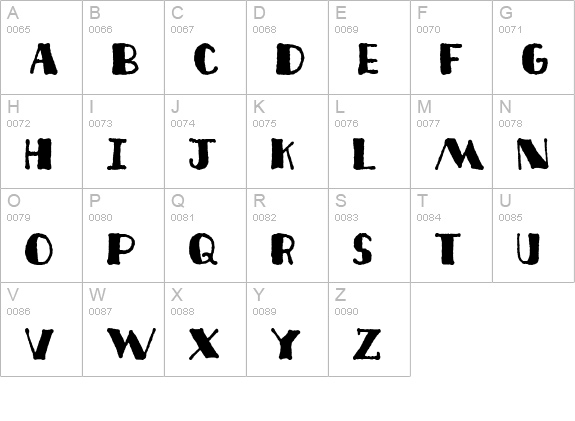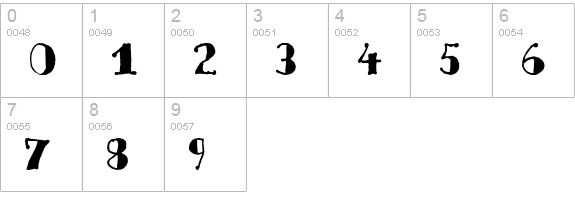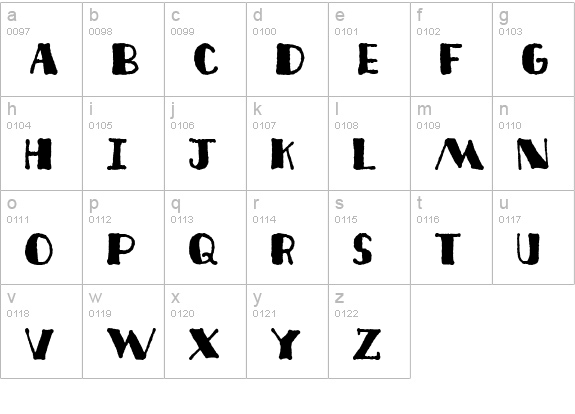
Deco Freehand Font Details
The Deco Freehand font is a charming and whimsical typeface that exudes a sense of creativity and artistic flair. Its hand-drawn style gives it a unique and playful look, perfect for adding a touch of personality to your designs. With its flowing lines and organic shapes, Deco Freehand is sure to bring a sense of fun and originality to any project. Best of all, Deco Freehand is freely available to download at FontsMarket.com, making it easy to incorporate this delightful font into your work without any cost. Whether you're designing a poster, creating a logo, or crafting a greeting card, Deco Freehand is a versatile and eye-catching choice that will surely make your projects stand out. Unlock your creativity and give your designs a free-spirited touch with Deco Freehand font.